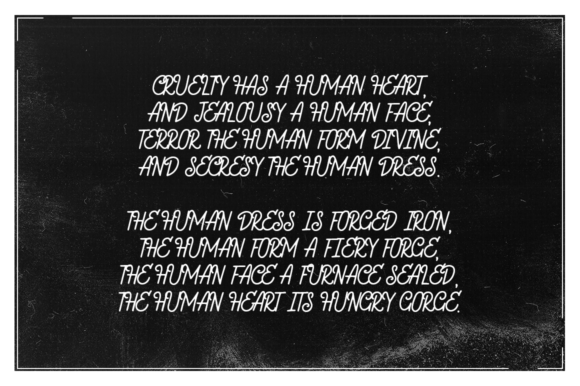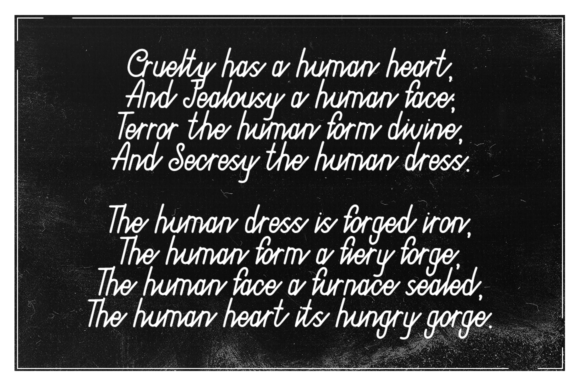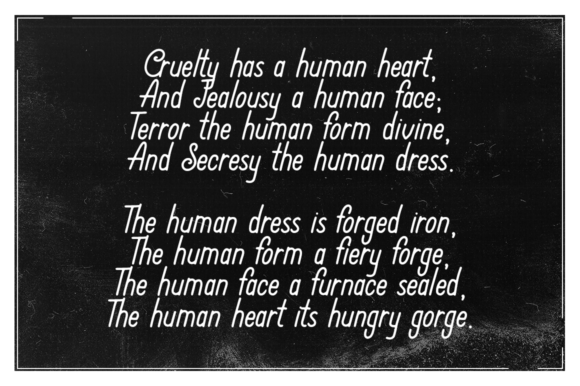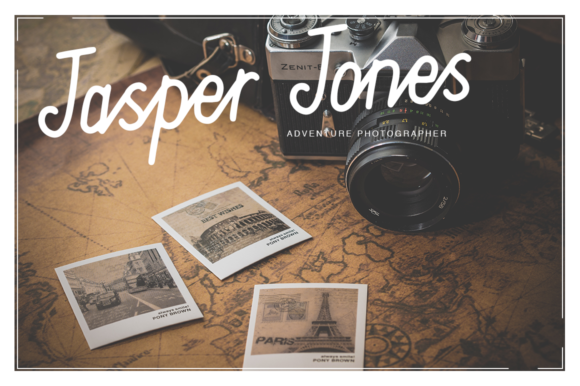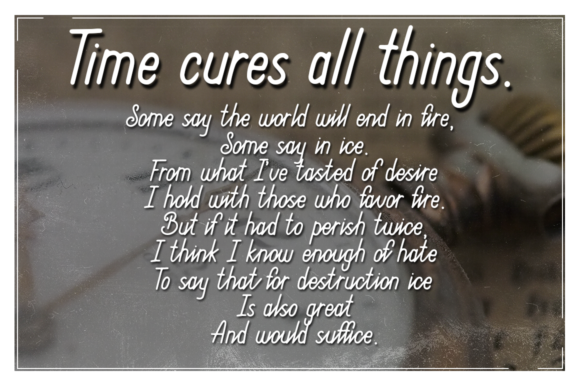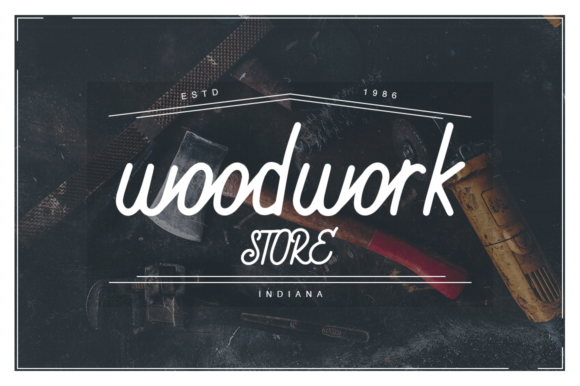
Introduction to Lucky Station Font
As a designer, have you ever stumbled upon the perfect font to elevate your creative project, only to find that it’s not quite fitting the bill? You’ve spent hours searching for the perfect combination of style and functionality, but it’s just out of reach. That’s where the Lucky Station Font comes in – a fresh, handmade calligraphy font that’s perfect for adding a touch of elegance to your branding materials, business cards, and more.
With its high-quality design and transparent background, the Lucky Station Font is a valuable resource for designers looking to take their projects to the next level. Whether you’re working on a personal project or a client’s design, this font is sure to make a lasting impression. And the best part? It’s available for a free download, making it an accessible design resource for creatives of all levels.
Key Features of Lucky Station Font
- High-quality, modern design perfect for creative projects and various design resources.
- Comes with a transparent background, allowing for easy customization and versatility.
- Features a clean and elegant design, ideal for use in logos, branding materials, and other visual identity projects.
Honest Review: Lucky Station Font
I recently stumbled upon the Lucky Station Font and I must say it’s been a game-changer for my creative projects. The high-quality design makes it a valuable resource for any designer looking to add a touch of elegance to their work.
Here are some of the things I like about the Lucky Station Font:
- ✨ Unique and modern design that’s perfect for creative projects.
- ✨ Transparent background, making it easy to overlay on any image.
- ✨ High-quality font that’s crisp and clear, even at large sizes.
However, I do have a few limitations to mention:
- ⚠️ Limited character set, which may not be suitable for longer texts.
Overall, I’m really impressed with the Lucky Station Font. It’s a fantastic design resource that’s perfect for adding a touch of sophistication to your creative projects. If you’re looking for a high-quality font to elevate your design, I highly recommend giving it a try.
How to Use Lucky Station Font
The Lucky Station Font is a high-quality design resource perfect for creative projects. With its unique and stylish design, it’s an ideal choice for designers and artists.
Tips for Getting the Most Out of Lucky Station Font
Use the Lucky Station Font with a transparent background to create visually appealing designs. Experiment with different font sizes and styles to achieve the desired effect.
Common Use Cases for Lucky Station Font
The Lucky Station Font is suitable for various creative projects, including logos, brochures, posters, and social media graphics. Its high-quality design and transparent background make it an ideal choice for designers and artists.
Alternatives to Lucky Station Font
Pacifico Font is a beautiful, elegant script font perfect for creative projects that require a touch of sophistication. It’s ideal for wedding invitations, branding materials, and other design resources where a high-quality, handwritten feel is desired. Pacifico Font offers a transparent background, making it easy to customize and pair with other fonts. It’s a great alternative to Lucky Station Font for designers seeking a more refined look.
Great Vibes Font is a fun, energetic font that’s perfect for creative projects that need a burst of excitement. It’s ideal for social media graphics, advertising materials, and other design resources where a high-quality, modern feel is desired. Great Vibes Font offers a wide range of styles and weights, making it easy to customize and pair with other fonts. It’s a great alternative to Lucky Station Font for designers seeking a more playful look.